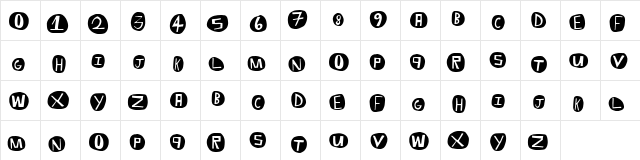
EightBaller Regular
Design Context for EightBaller Typeface
EightBaller is a composed and adaptable typeface that performs quietly and consistently across a wide range of design contexts.